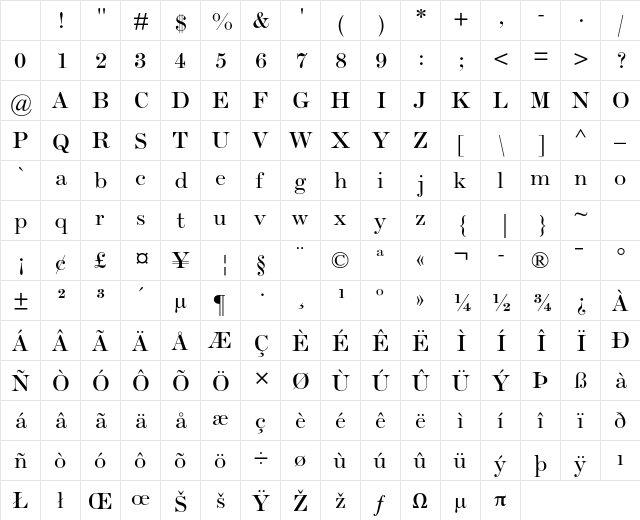
Complete Scotch Roman MT Std Regular glyph index. Displaying only characters natively supported by Scotch Roman MT Std Regular font.
Scotch Roman MT Std is a composed and adaptable typeface that performs quietly and consistently across a wide range of design contexts.